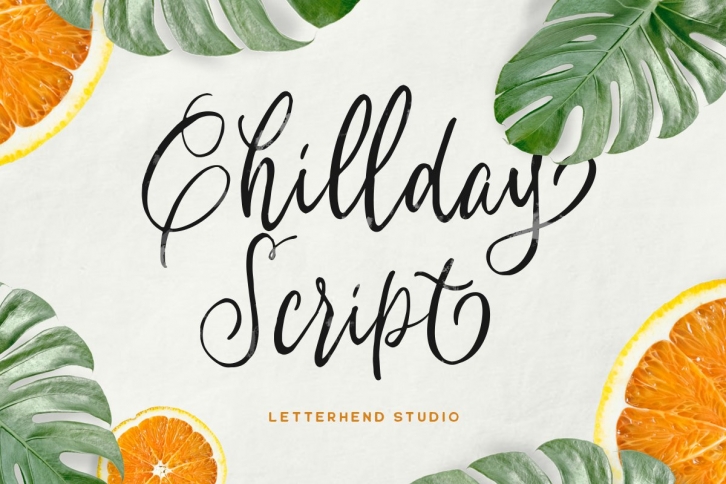
Chillday Script is a great font that was designed by Letterhend. Imagine the amount of combinations you can create using this font! The archive is 18.1 MB and it was released on August 25, 2020. Chillday Script looks beautiful on wedding invitations, greeting cards, logos, posters, labels, t-shirt designs, logos, business cards and is perfect for use in ink or watercolor works, fashion, magazines, packaging and food menus, children's books and more!